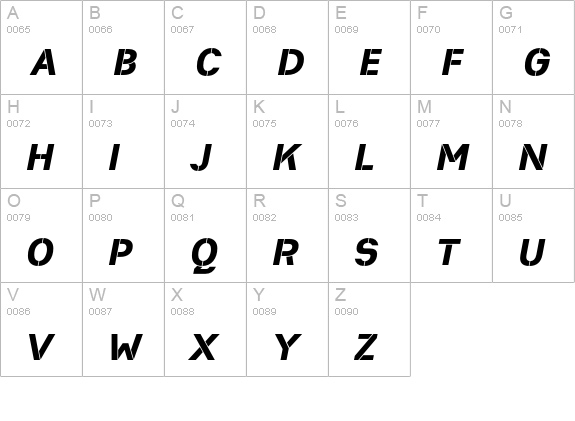
Heimat Stencil ExtraBold Italic Font Details
Heimat Stencil ExtraBold Italic is an extra-heavy, attention-grabbing, italic variant in the Heimat typeface family \xE2\x80\x94 well suited to high-impact headlines, posters, and bold branding.
Heimat Stencil ExtraBold Italic font is a bold and dynamic typeface that exudes strength and modernity. Its sharp edges and unique stencil design make it stand out in any project, adding a touch of sophistication and creativity. The italic style adds a sense of movement and flair, making it perfect for eye-catching headlines and attention-grabbing designs. This versatile font is ideal for a wide range of applications, from posters and packaging to branding and editorial design. Its bold presence commands attention and ensures that your message is delivered loud and clear. Best of all, Heimat Stencil ExtraBold Italic font is available for free download at FontsMarket.com. This means you can easily access this high-quality typeface without any cost, making it an excellent choice for designers on a budget or anyone looking to add a touch of elegance to their projects. Don't miss out on the opportunity to enhance your designs with this stylish and impactful font today!